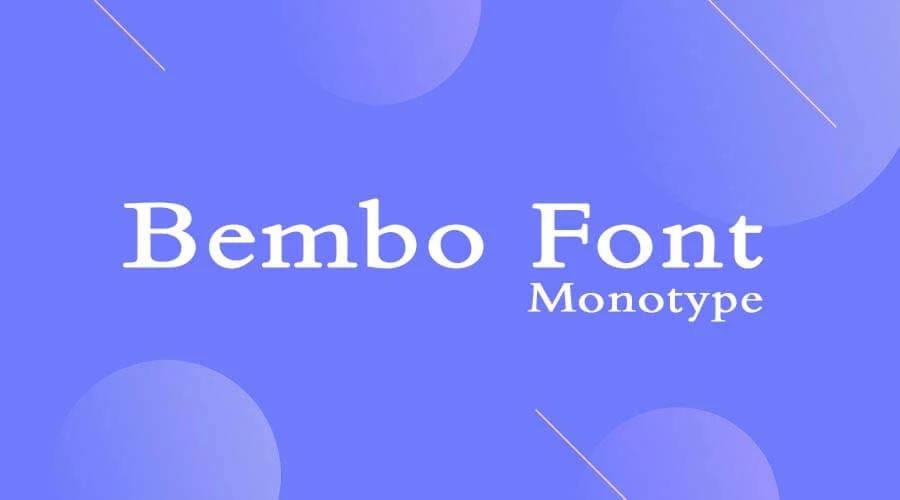
Bembo Font
Created by the British branch of the Monotype Corporation, the Bembo font is a serif typeface and a member of the old-style serif. This font was designed in 1928–1929 and is most commonly used for body text. The Bembo design was named after notable the Venetian poet, Cardinal, and literary theorist of the 16th century Pietro Bembo. The typeface was originally used to publish Pietro Bembo’s book “De Aetna”.
- Designing: For huge designing purposes, Such as Business cards, Headlines, and Brochure layouts, Bembo is at the top of everyone’s favorite list.
- Logos: You can design your logos with it.
- Websites: I have seen various websites use this font.
- Magazines: The font has the outlook to place on top of magazines.
- Official Documents: Bembo is ideal for official documents or printing purposes.